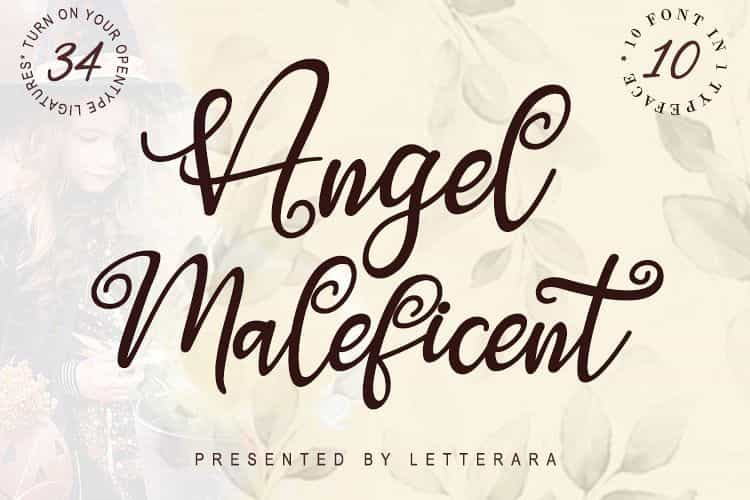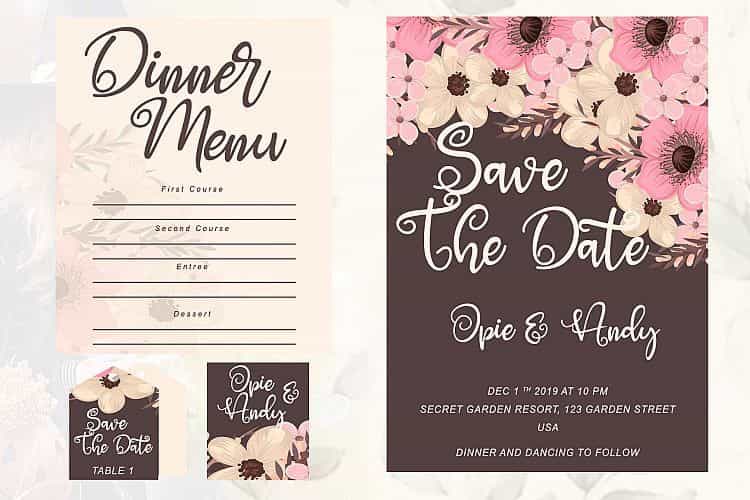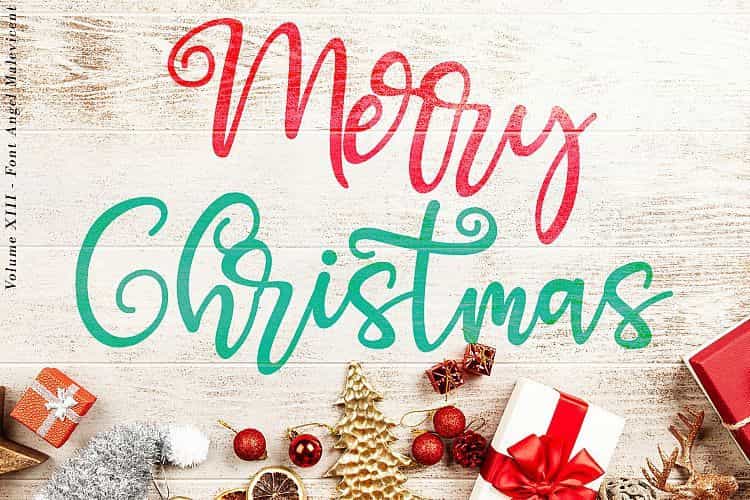
Discover Angel Maleficent Font, part of the Brush Calligraphy Handwritten collection—a versatile and unique font perfect for adding a personal touch to your projects. Download it for free and enjoy crafting designs with style, from invitations to social media posts. This font is available exclusively for personal use, giving you the freedom to create without limits. Unlock your creativity with Angel Maleficent Font today!
Angel Maleficent is a beautiful font family, and its different several styles go well together to produce bright standout designs!